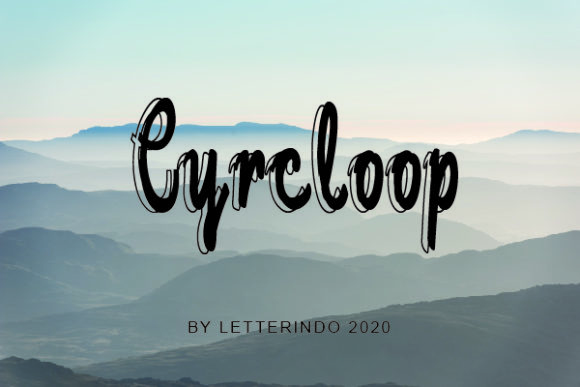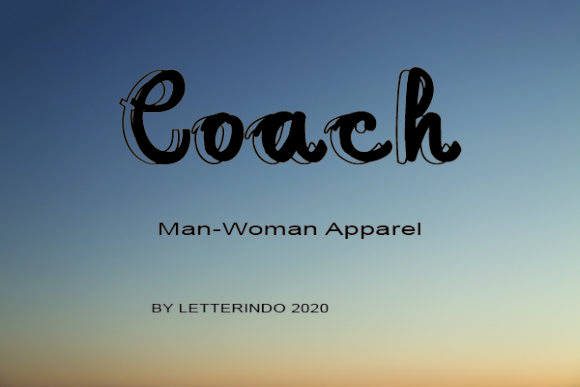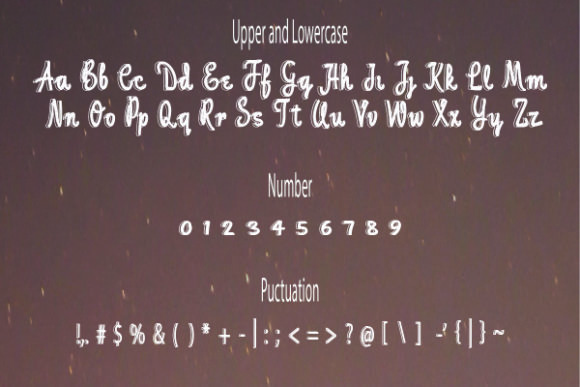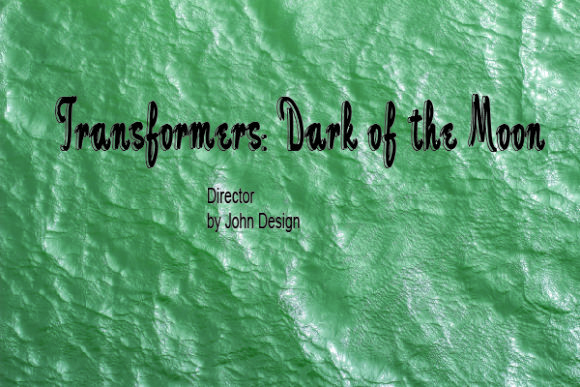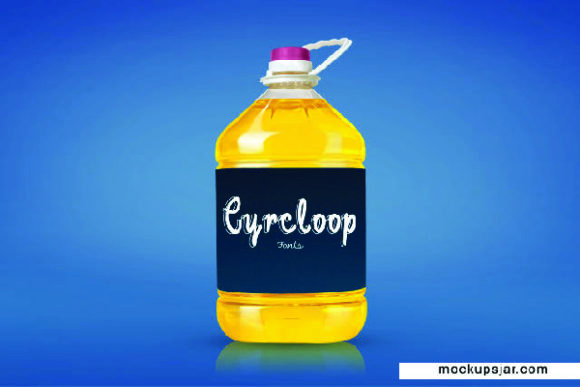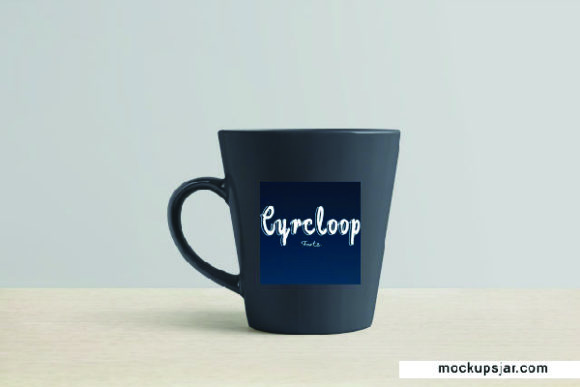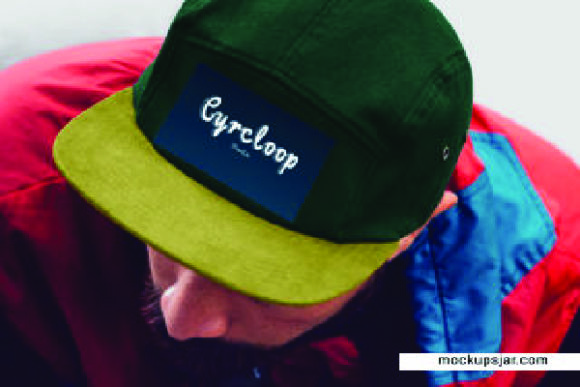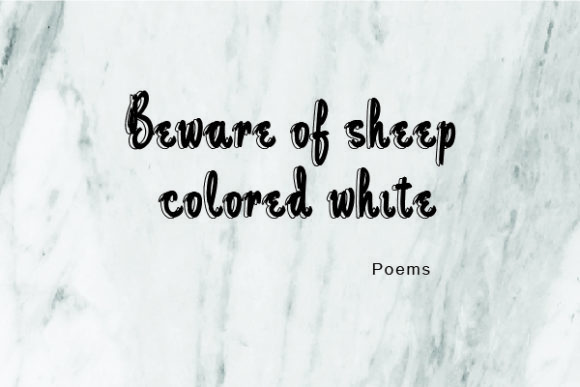
Cyrcloop Font
About Cyrcloop Font
Cyrcloop is a unique handwritten font. Whether you’re looking for fonts for Instagram or calligraphy scripts for DIY projects, Sweetfy will turn any creative idea into a true piece of art ! Its casual charm makes it appear wonderfully down-to-earth, readable and, ultimately, incredibly versatile.